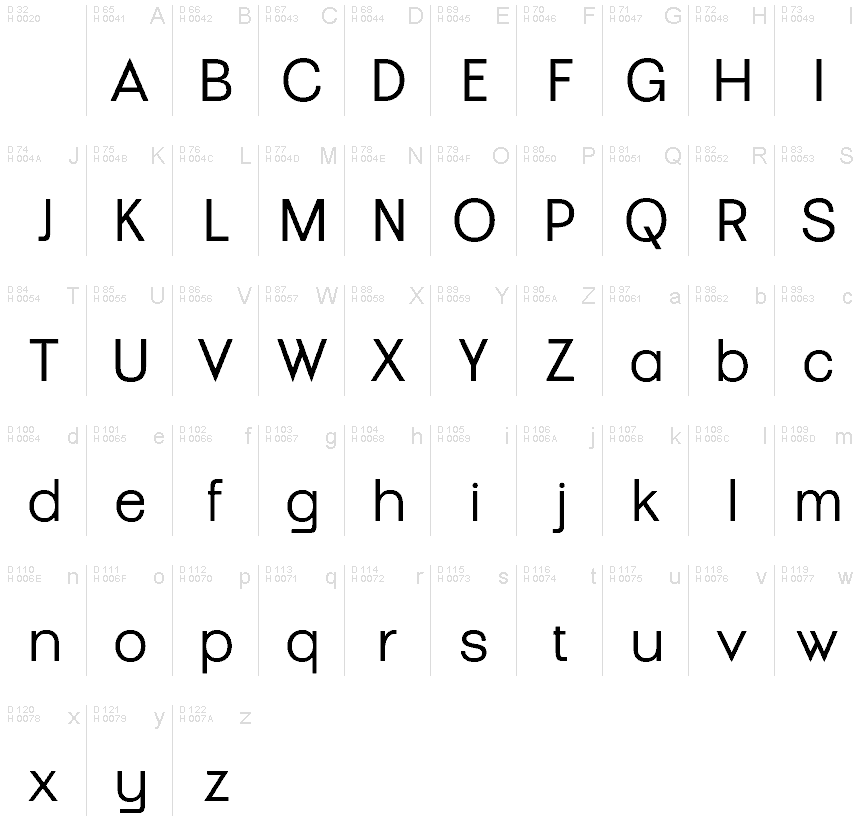
Heily font is a modern sans serif typeface by Craft Supply Co. Its geometric construction and balanced alignment deliver an overall clean and minimalistic feel. This contemporary aesthetic provides the perfect foundation for your elegant design projects.
This free versatile font looks great in magazines, headlines, certificates, invitations to special events, business cards, typography logos & initials, apparel designs & labels.